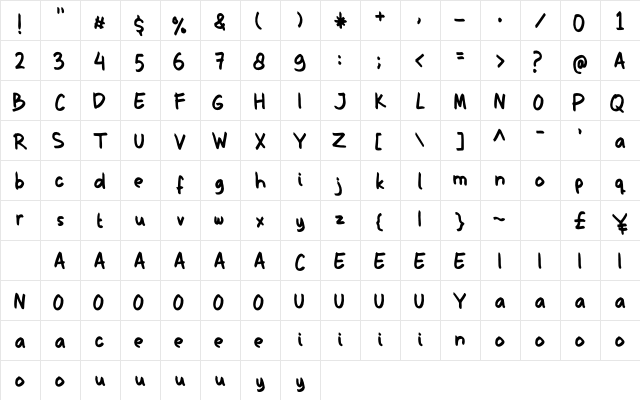
Gosrokan Regular
Design Context for Gosrokan Typeface
Gosrokan is a composed and adaptable typeface that performs quietly and consistently across a wide range of design contexts.